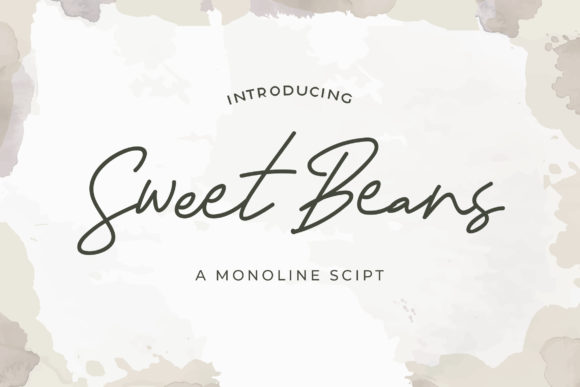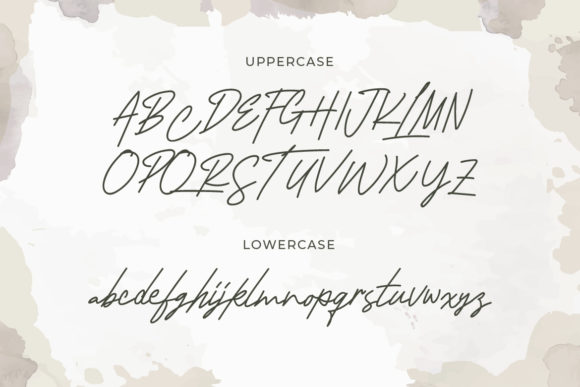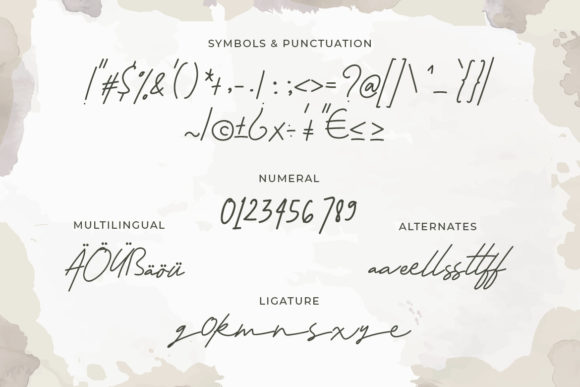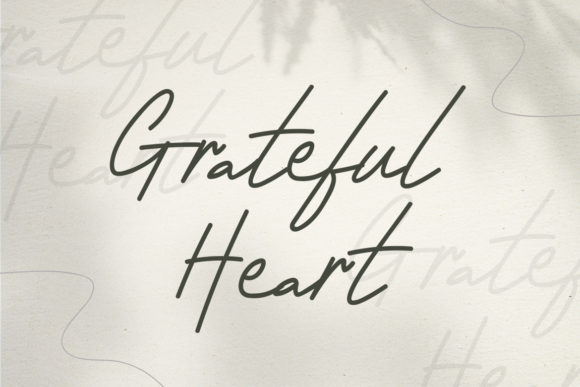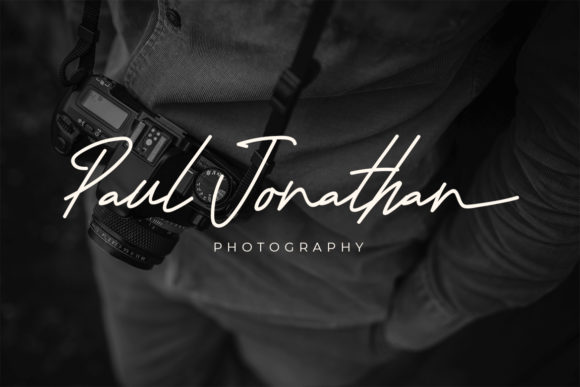
About Sweat Beans Font
Sweat Beans is a casual monoline script font. It maintains its classy calligraphic influences while feeling contemporary and fresh. This versatility will appeal to a wide range of crafty ideas, from letterheads and titles, to stationery.